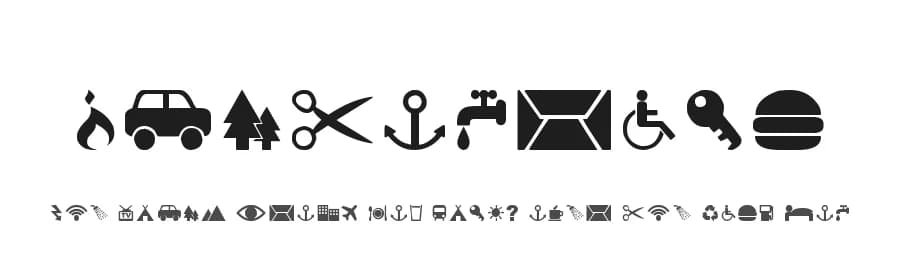
About Pictogramz Font
Pictogramz is a dingbat font designed by Marioz. It includes 236 glyphs, a regular weight, TTF (TrueType) format, and 209 languages. Pictogramz is free to download; check the license details on this page before commercial use. Dingbat fonts like Pictogramz work best for icons, ornaments, bullet points, and decorative accents.
Pictogramz Font is a versatile dingbats font that works for both headings and body text. Pair it with a contrasting sans-serif or serif font to add visual interest and a clear distinction between titles and body copy.
Pictogramz Font is a dingbats typeface by Marioz, ideal for logos, invitations, branding, and creative projects.